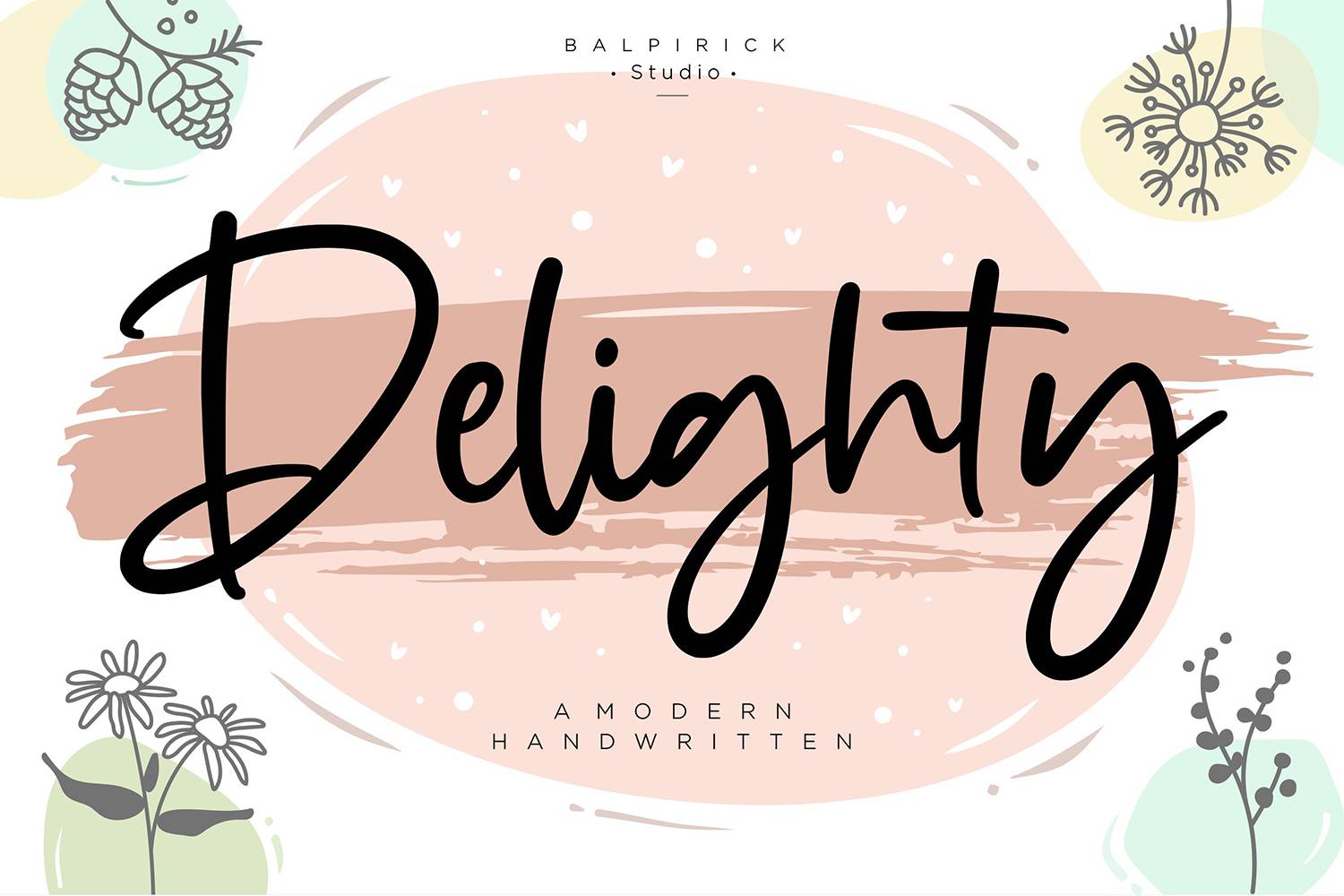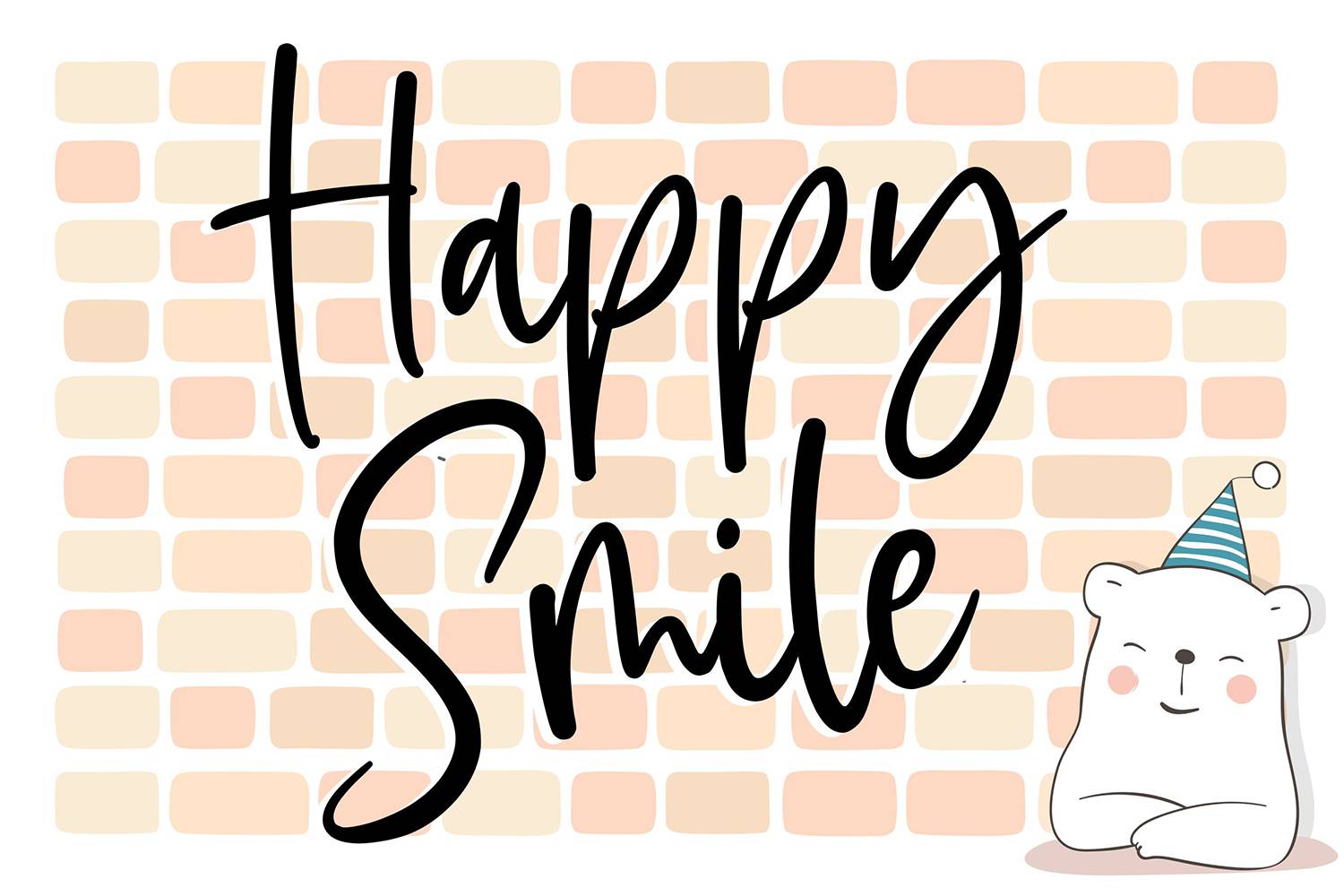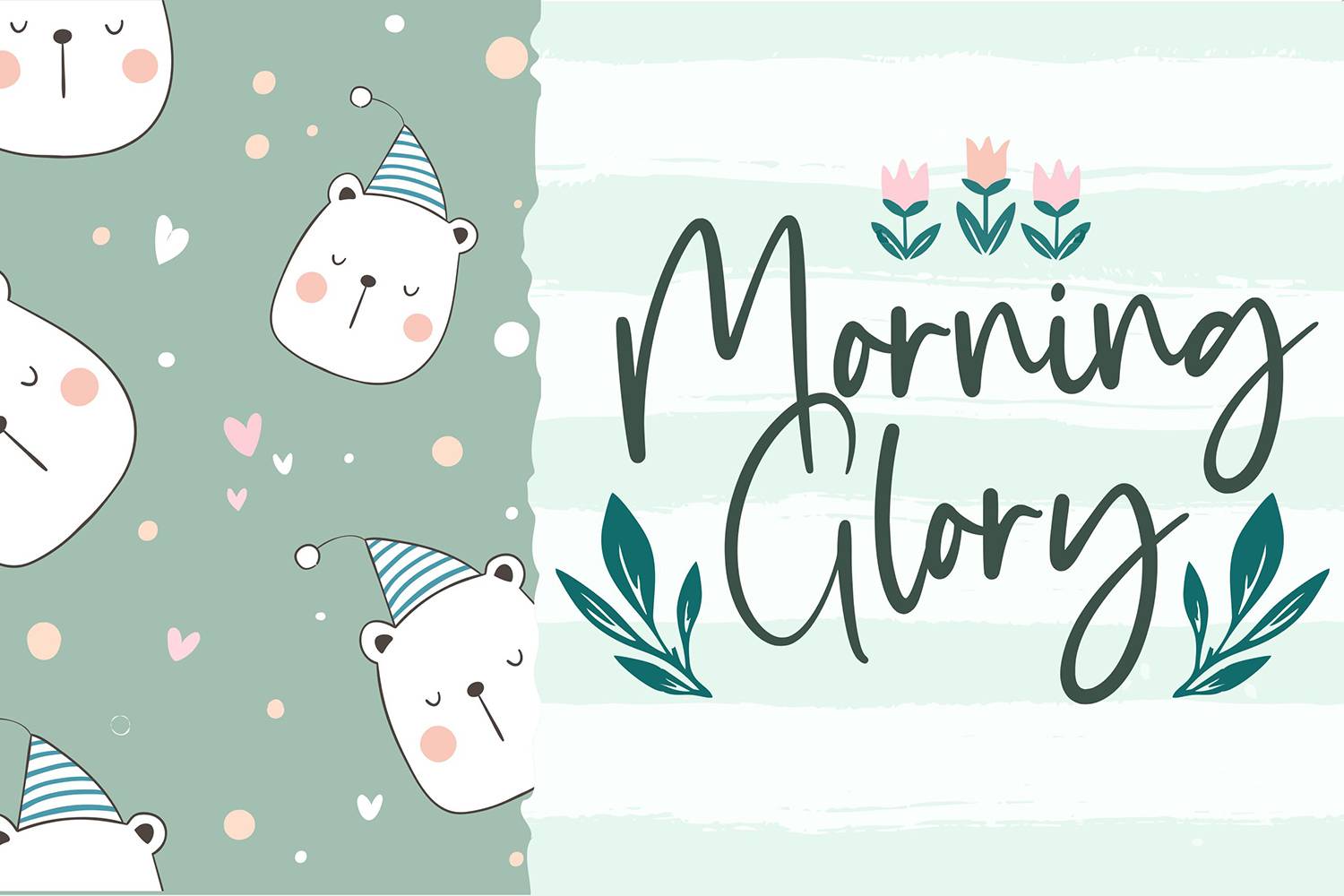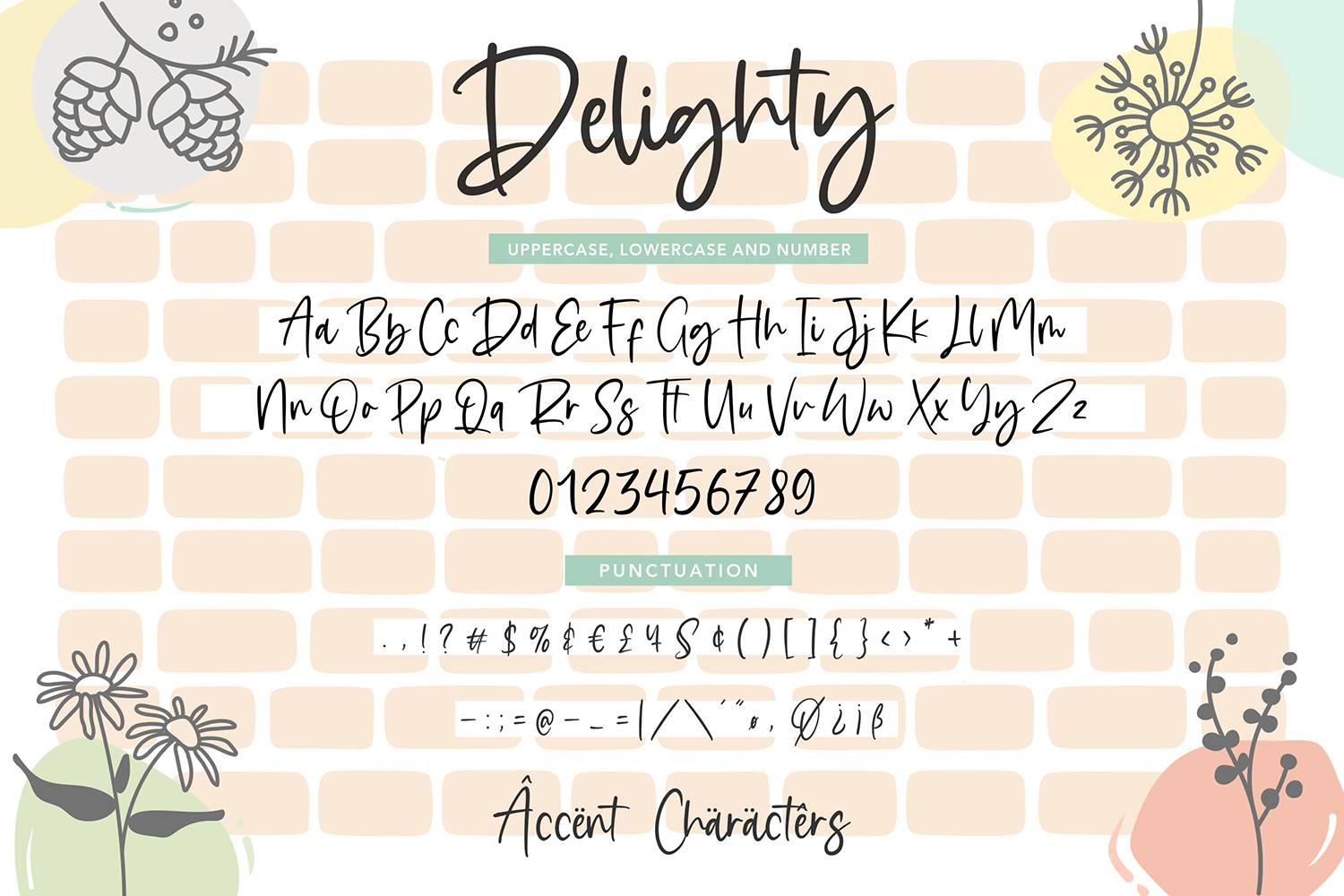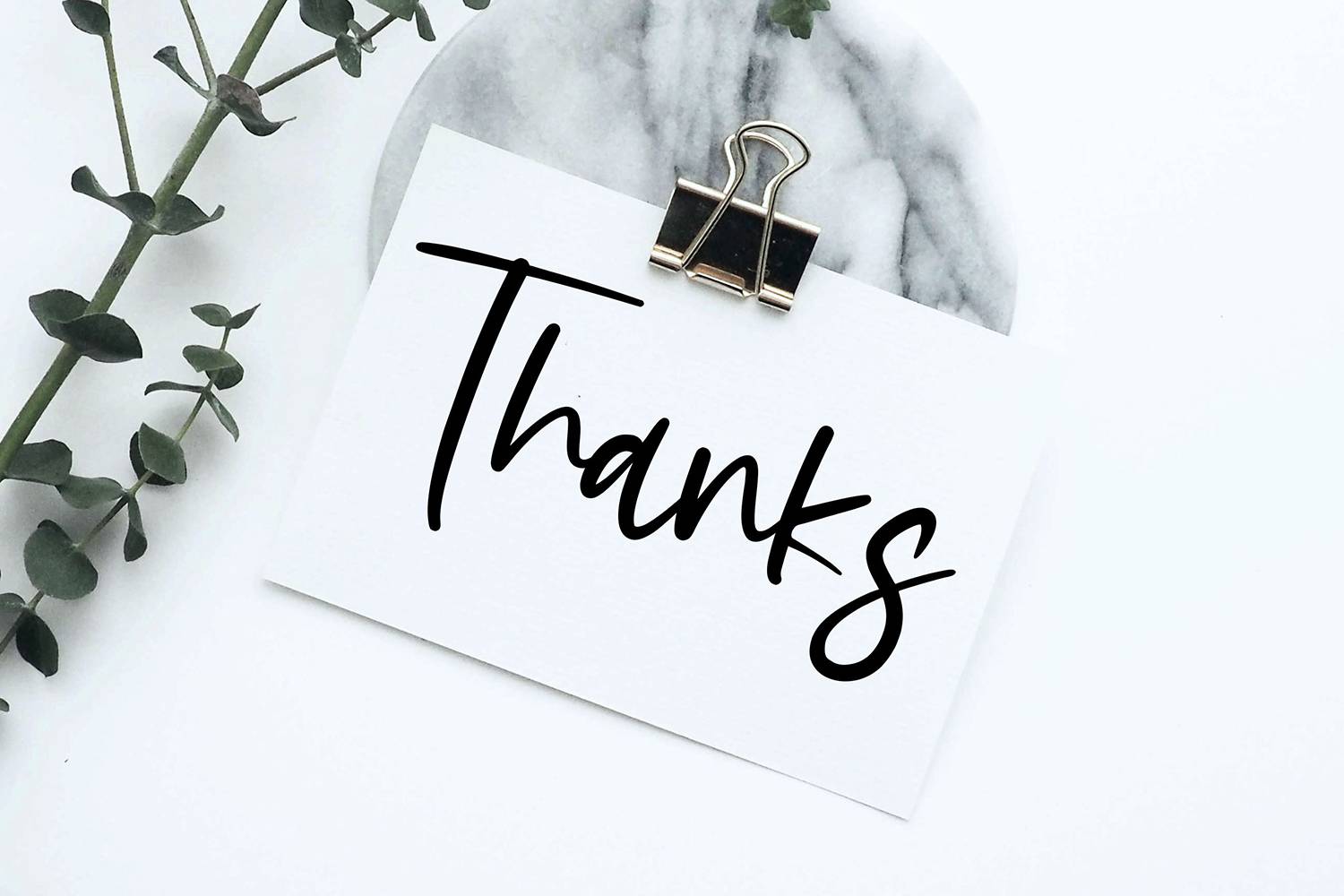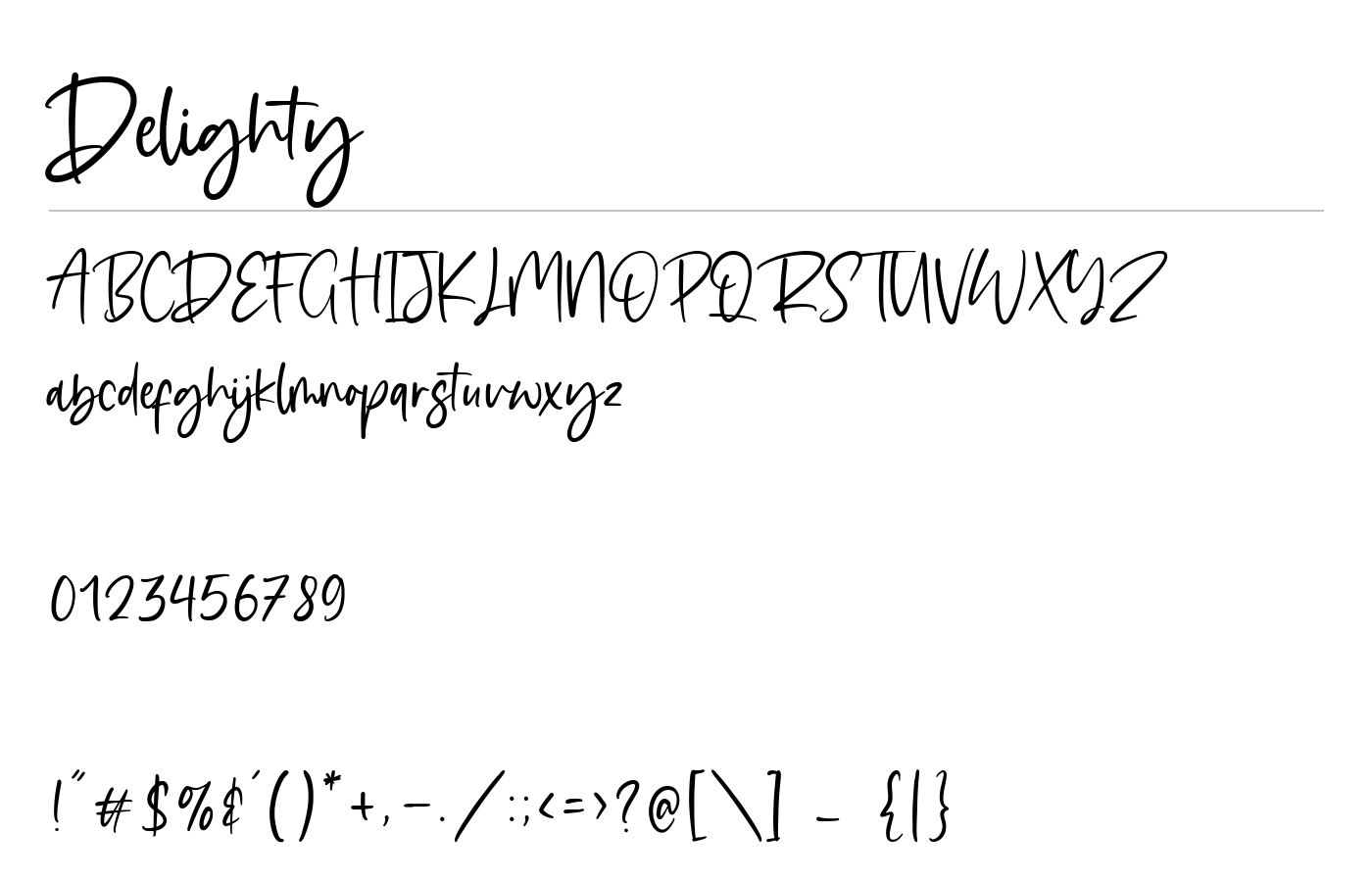
Delighty is a playful and modern handwritten script font with a casual, flowing style that feels personal and approachable. Its slender, slightly irregular strokes and lively letterforms make it ideal for creative projects that want to convey warmth and friendliness, such as branding, invitations, or social media graphics. This font shines in headlines and decorative use, adding a charming, handcrafted touch wherever it’s applied.
Delighty Font
About Delighty Font
| Font family | Delighty Font |
| Designer | Balpirick 2020 |